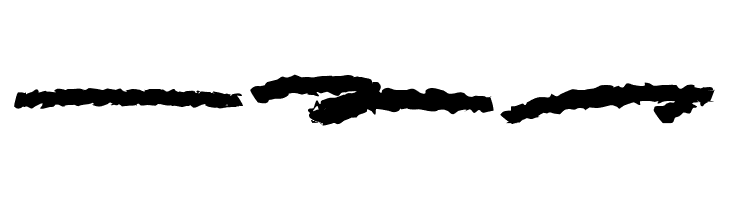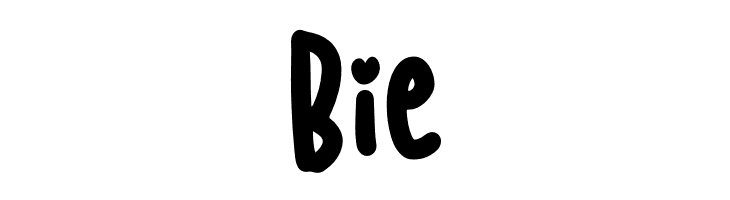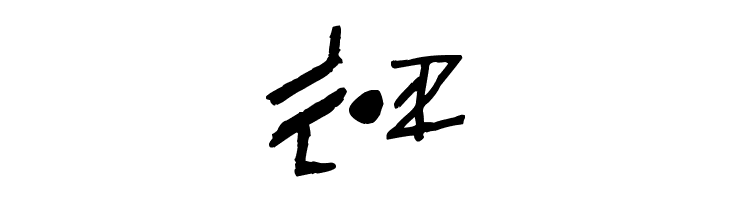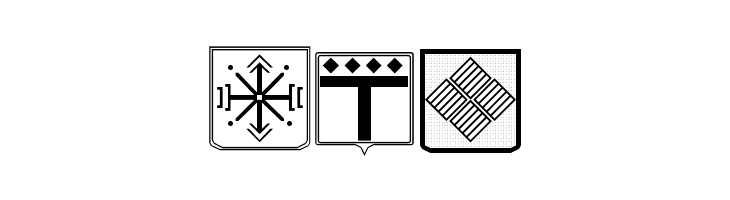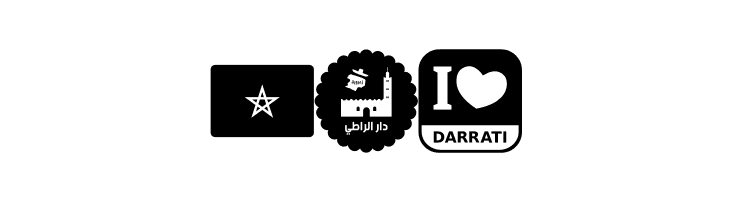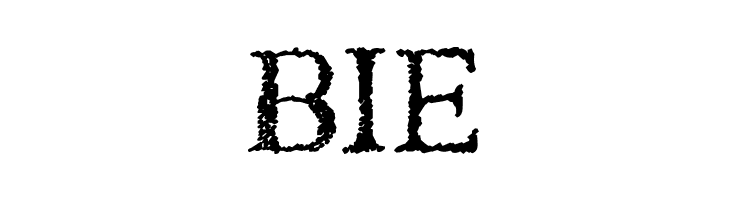
A bold, dynamic script font with fluid, connected letterforms and a modern vibe.
A spooky, decorative font with scratchy, uneven strokes.
A bold, playful handwritten font with a lively and energetic style.
Abstract, hand-drawn script with irregular, ancient-like forms.
A display font of illustrated fantasy shield icons.
A bold collection of Moroccan-themed icons and Arabic calligraphy.
A rugged, distressed font with a vintage, hand-drawn appearance.
A decorative symbol font with Moroccan and Algerian national motifs.
A playful, pirate-themed font with bold, hand-drawn characters and decorative cross-stitch patterns.